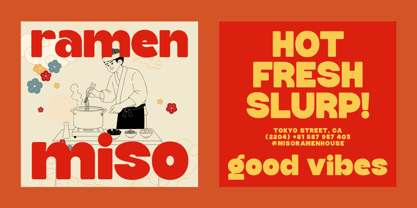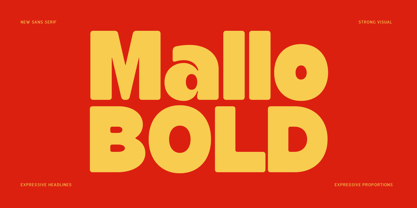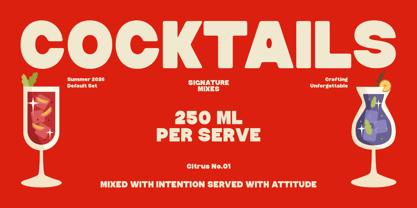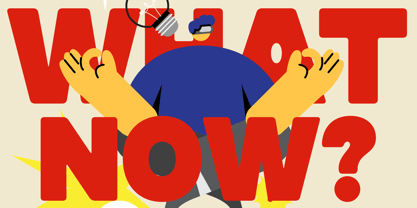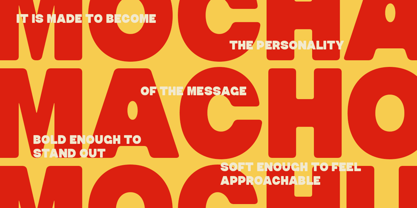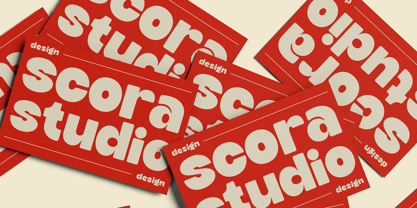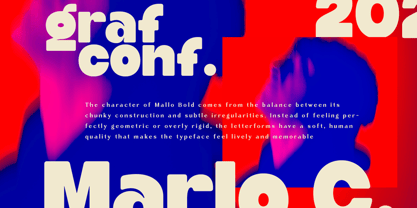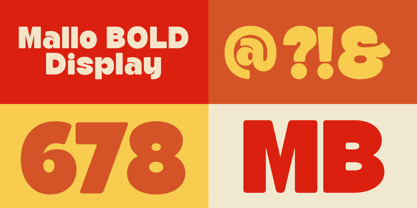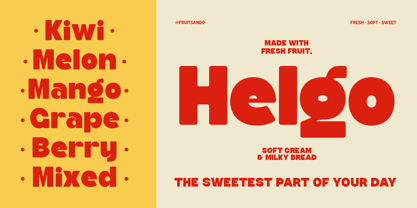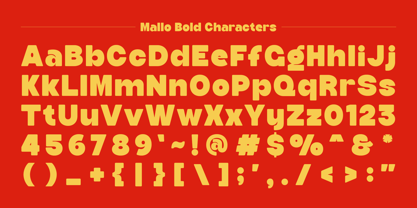
Mallo Bold
Mallo Bold is a chunky, rounded display font designed with bold proportions, thick strokes, soft curves, and playful letterforms. Its distinctive shapes and subtle irregular details create an expressive typographic style that brings personality and visual impact to creative projects.
Mallo Bold is designed for display use and works especially well for logos, branding, posters, packaging, headlines, editorial layouts, advertising, menus, labels, social media graphics, and other typography-focused designs. Its rounded construction gives the font a friendly character, while its strong weight helps short words and large headlines stand out clearly.
Whether you're creating a food brand, product identity, promotional poster, packaging concept, or bold social media graphic, Mallo Bold provides a chunky and expressive display style that can adapt across a variety of creative applications.